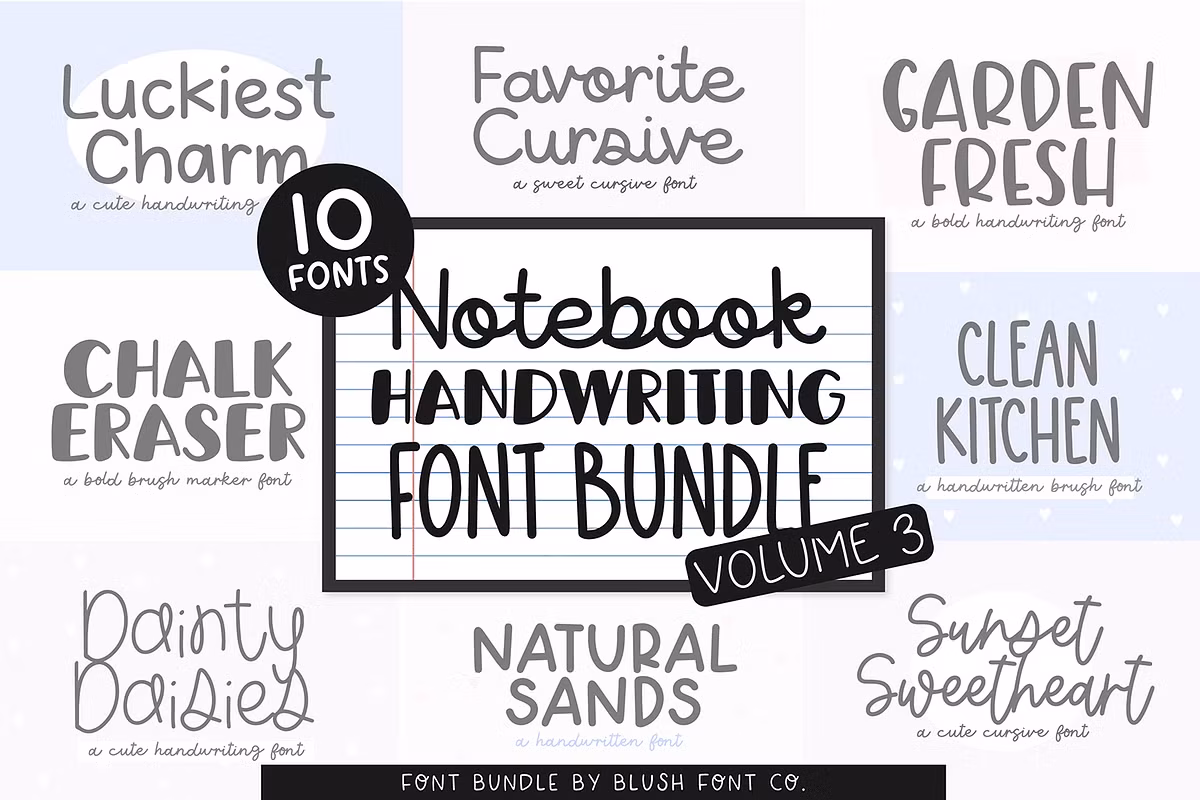
NOTEBOOK HANDWRITING BUNDLE VOL.3 Free Download is a fantastic collection of handwritten fonts, designed to give your designs an authentic, personal touch. This bundle includes multiple fonts that mimic natural handwriting, making it perfect for personal projects, invitations, social media graphics, branding, and more. Whether you need a playful, casual style or a more refined handwritten look, this bundle offers a variety of fonts to suit your needs.
The fonts in this bundle bring warmth and authenticity to your designs, making them perfect for projects that require a humanized, handcrafted feel. Ideal for creating custom stationery, greeting cards, and creative branding materials.